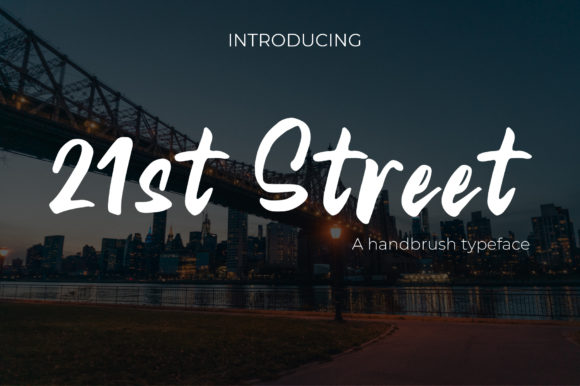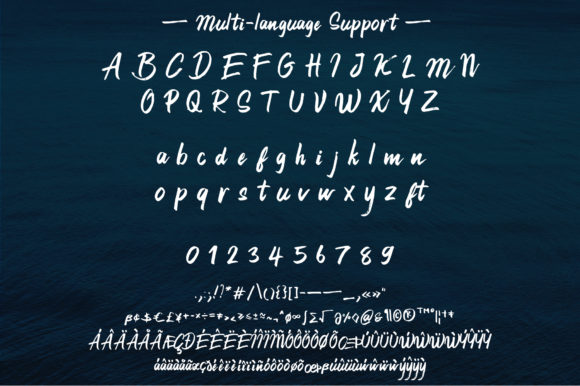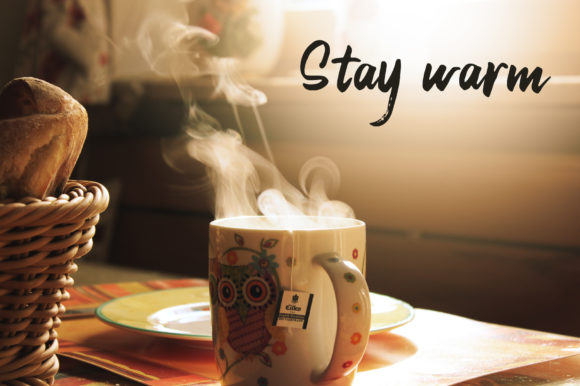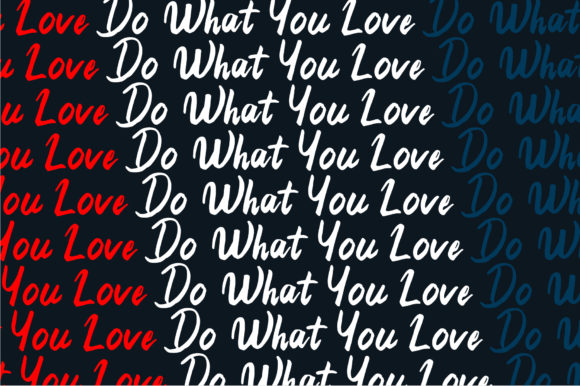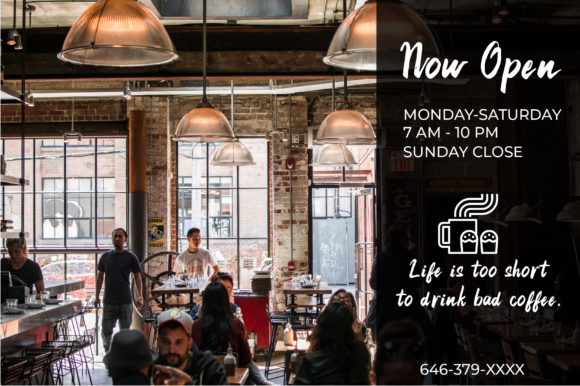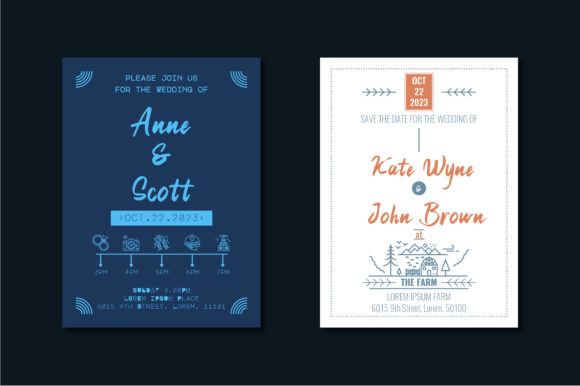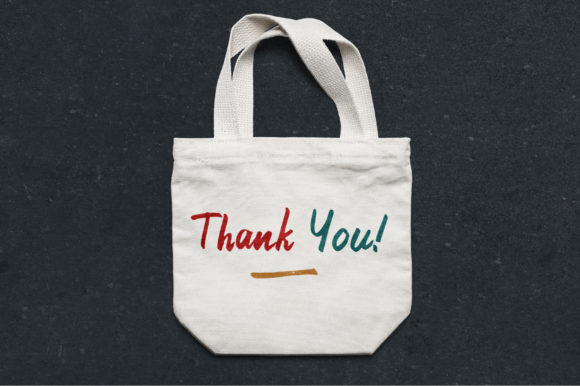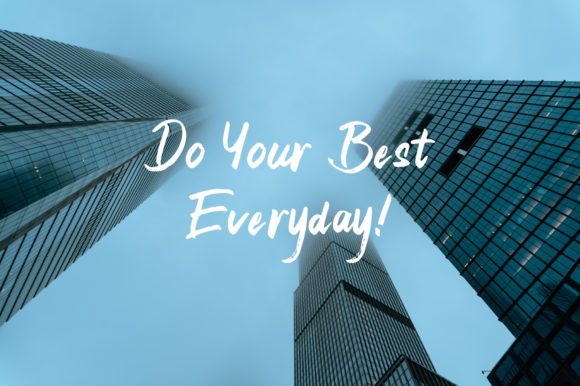
21st Street Font
About 21st Street Font
21st Street is a sweet handwritten font that will turn any design project into a true standout. Get inspired by its unique charm!